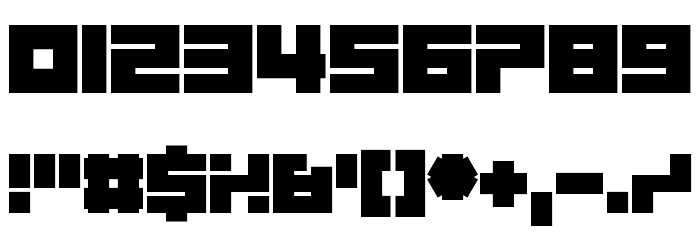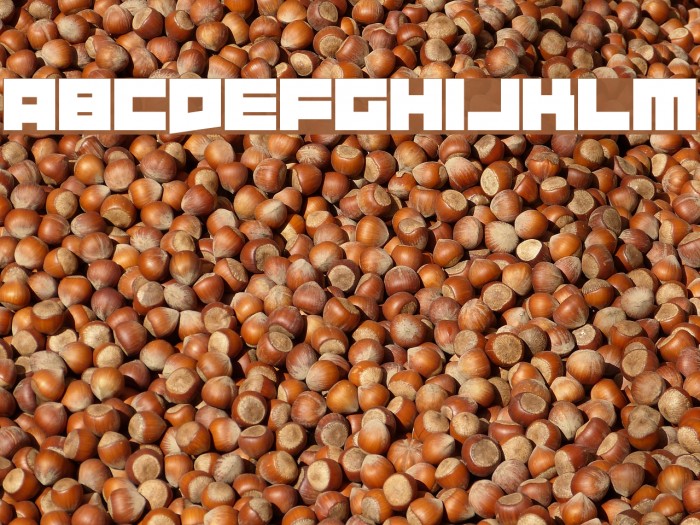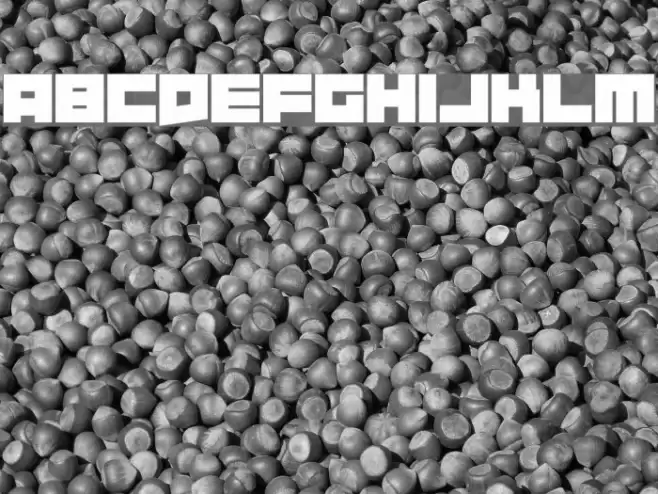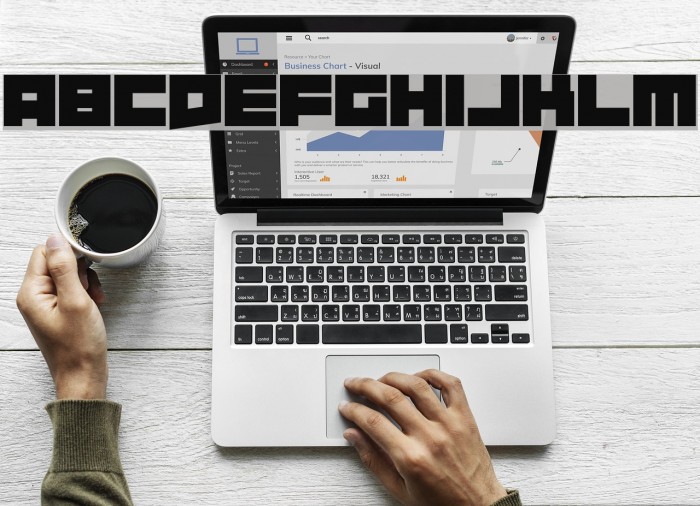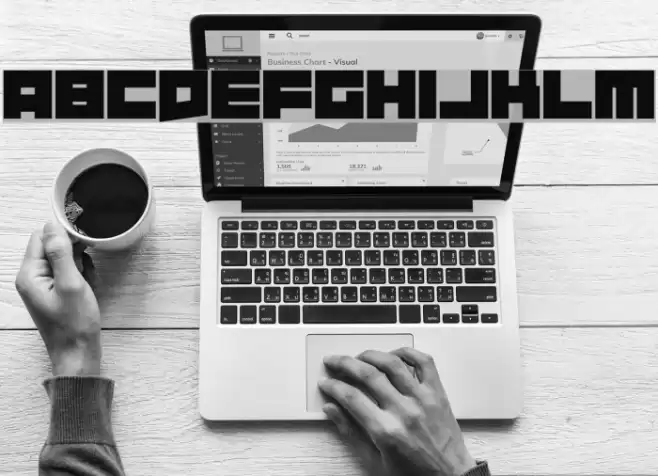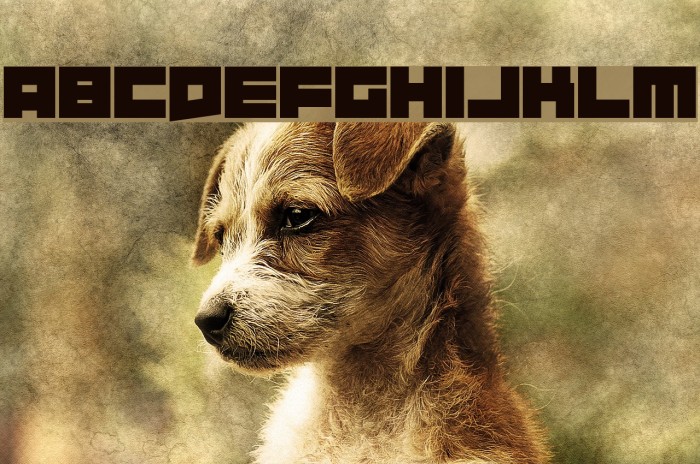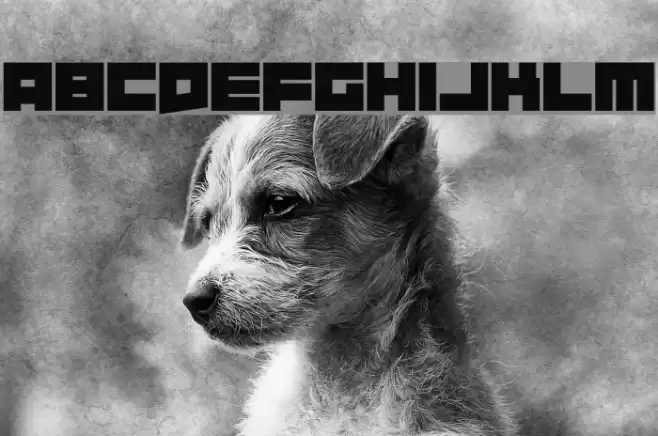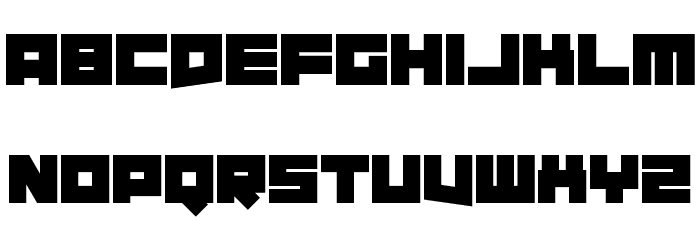
Requires Moonshine Font
Requires Moonshine Description
This font features a bold, geometric design with a distinctly modern and edgy appearance. The characters are constructed with sharp angles and straight lines, creating a blocky and robust aesthetic. The uppercase and lowercase letters share a uniform height, contributing to a cohesive and compact look. The numerals and special characters maintain the same bold and angular style, ensuring consistency across all glyphs. This font's unique style makes it stand out, with a futuristic and industrial vibe that is both eye-catching and impactful.
A bold, geometric font with a modern, edgy style from Uncategorized fonts.
• Proposed Projects: Ideal for use in video game titles, tech branding, posters, and any project requiring a strong, futuristic look.
• Bold: Yes
• Italic: No
• Weight: Bold
• Width: Normal
• Character Spacing: Normal
• Contrast: Low
• Overall Style: Modern
• Use Case: Headlines, Logos